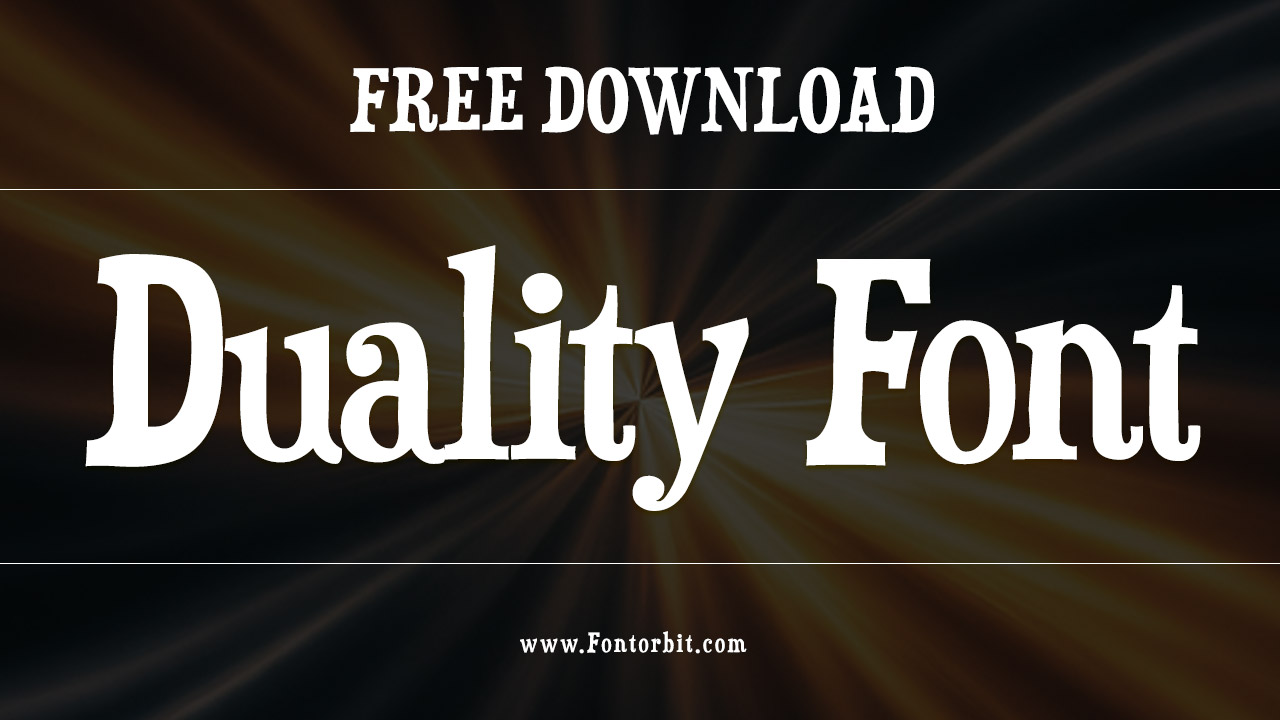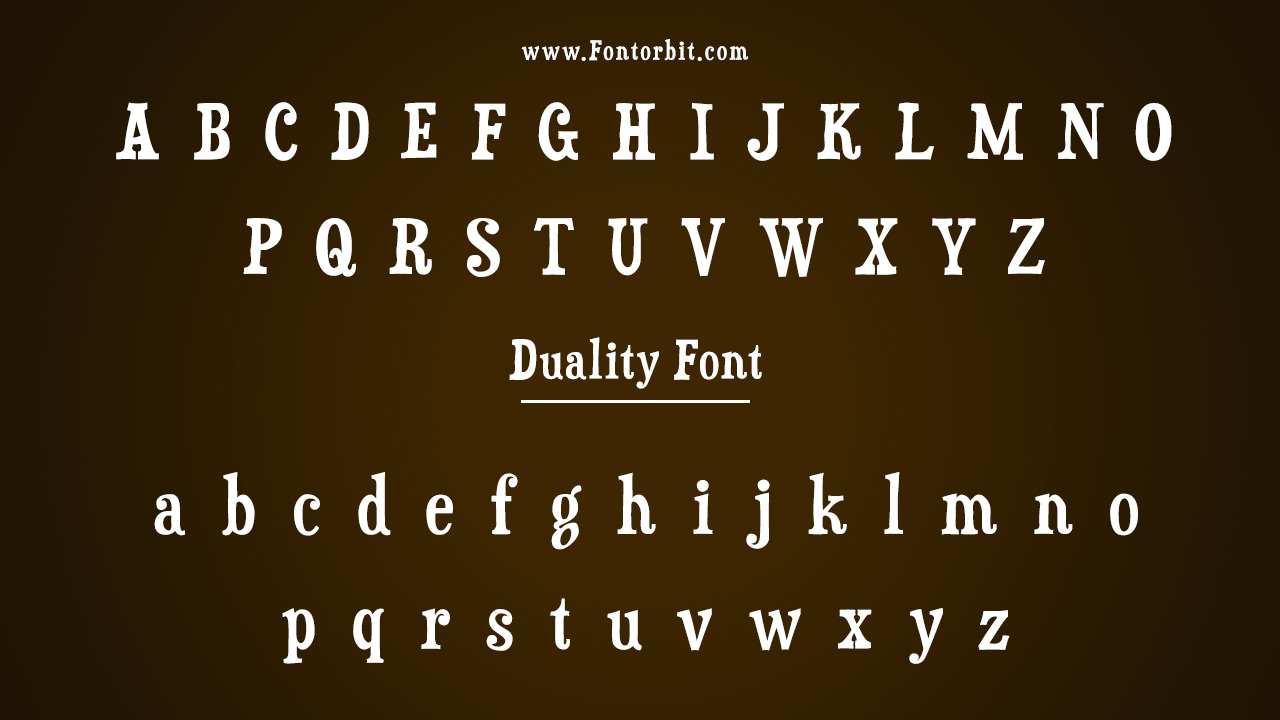
The Duality Font is a robust, condensed display typeface with a unique personality, designed by Ray Larabie and distributed by Typodermic Fonts. This typeface stands out with its wild slab-serifs, eccentric ball-terminals, and rugged aesthetic, making it perfect for impactful and creative projects. Whether used for posters, logos, or web graphics, Duality brings a distinct flair to any design.
Type Of The Duality Font (Font Family)
The Duality Font Family offers three distinct styles to cater to diverse design needs:
- Duality Regular: Clean and versatile, suitable for a wide range of applications.
- Duality Sand: A gritty, textured style ideal for vintage and rustic designs.
- Duality Steel: A letterpress-inspired look that adds an industrial edge.
Using Occasions Of The Duality Font
The Duality Font Family is a versatile typeface that suits various design scenarios. Here are some common use cases:
- Logos: Ideal for creating bold, memorable branding.
- Posters: Enhances attention-grabbing headlines and visual elements.
- Web Graphics: Adds personality to digital designs and typography.
- Printed Materials: Perfect for brochures, banners, and event signage.
- Signage: A rugged aesthetic makes it ideal for decorative or retro signs.
Duality Font Found In Use
The Duality Font is widely used in projects requiring a bold and condensed display typeface. Its rugged yet artistic appearance makes it a popular choice for:
- Sports and vintage-themed designs.
- Typographic posters and branding materials.
- Digital and printed media requiring strong visual elements.
Similar Fonts To Duality
If you like the Duality Font, you might explore these related typefaces:
- Rayken Free: A bold and modern option.
- Eventful: Perfect for decorative and stylish projects.
- Morbodoni: Offers a mix of boldness and elegance.
- That Appeal: A retro-inspired choice.
- Easy Print: Combines practicality with flair.
These fonts share a similar condensed or Western aesthetic, making them great alternatives or complements to Duality.
The Duality Font is a rugged, condensed display typeface that adds character and style to any project. With its bold designs and unique features, it’s an excellent choice for posters, signage, logos, and more. Whether you’re creating vintage-inspired materials or bold modern graphics, Duality ensures your designs stand out.
1.What Is The Duality Font, And What Makes It Unique?
The Duality Font is a rugged condensed display font designed by Typodermic Fonts. It features wild slab-serifs, eccentric ball terminals, and a distinctive design that makes it stand out among popular fonts. This typeface is ideal for posters, signs, logos, and other typographic projects requiring a bold, artistic touch. Its versatility includes support for math symbols, numeric ordinals, and fractions.
2.What Styles Are Available In The Duality Font Family?
The Duality Font Family offers three distinct styles to cater to different types of projects:
- Duality Regular: A clean and versatile serif font for a range of applications.
- Duality Sand: A gritty, textured style ideal for vintage or rustic designs.
- Duality Steel: A typewriter font-inspired look with an industrial and rugged edge.
These styles are perfect for creating typographic designs, printed materials, and web graphics.
3.What Are The Primary Use Cases For The Duality Font?
The Duality Font is highly versatile and suitable for a variety of design applications:
- Logos: Perfect for creating bold and memorable branding.
- Posters and Signs: Enhances visual appeal with its rugged condensed display font style.
- Web Graphics: Adds personality to online projects.
- Printed Material: Ideal for brochures, banners, and other printed designs.
Its ability to support detailed characters and foreign fonts makes it a go-to choice for designers working on multi-language projects.
4.Does The Duality Font Support Multiple Languages?
Yes, the Duality Font supports most Latin-based foreign fonts and languages, including Cyrillic and Arabic scripts. Its character map includes a wide array of symbols, fractions, and numeric ordinals, making it a modern font suited for diverse linguistic needs. This versatility helps designers create typographic projects in various languages without sacrificing style.
5.Are There Similar Fonts To The Duality Font?